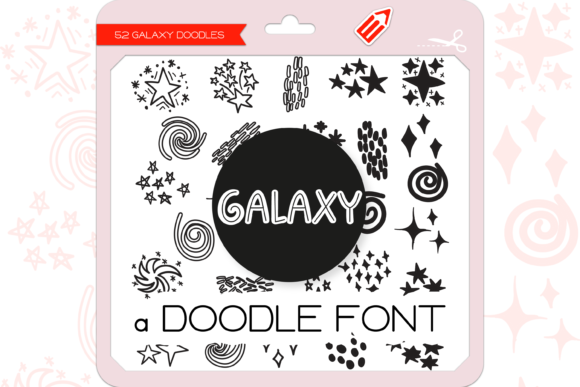
Spark Your Creativity with the Galaxy Dingbats Font
Have you ever stared up at a starry night sky, feeling the urge to create something as magical and whimsical as the stars themselves? As designers, we’re no strangers to the thrill of finding the perfect font to bring our ideas to life. That’s exactly what happened when we stumbled upon the Galaxy Dingbats Font – a charming collection of 52 hand-drawn doodles of stars and the milky way.
This delightful font is designed to add a touch of whimsy to your designs, whether you’re creating a border, divider, or frame. The Galaxy Dingbats Font is a treasure trove of creative possibilities, just waiting to be explored. For designers looking to add a unique twist to their work, this font is a valuable asset that’s sure to set your designs apart from the rest.
Galaxy Dingbats Font Key Features
- Font Style: Dingbats, a unique blend of symbols and graphics
- Unique Characteristics: Features a wide range of symbols, including celestial bodies, stars, and other astronomical elements
- Character Count: Includes over 1000 unique characters, including uppercase and lowercase letters, numbers, and symbols
Galaxy Dingbats Font Review
Overall, I think the Galaxy Dingbats Font is a visually appealing and unique choice for designers looking to add a touch of the cosmos to their projects. ✨ The font’s stylized, hand-drawn feel gives it a quirky and eye-catching quality that’s sure to grab attention.
- ✨ The font’s ability to evoke a sense of wonder and curiosity, perfect for projects that need to convey a sense of discovery or exploration.
- ✨ The wide range of weights and styles available, making it easy to customize the font to fit your specific design needs.
- ✨ The font’s versatility, working well in both digital and print projects.
- ⚠️ The font may not be suitable for projects that require a high level of professionalism or formality, as its stylized feel may come across as too playful or casual.
- ⚠️ The font’s lack of consistency in terms of letter spacing and kerning may make it difficult to read in certain contexts.
- ⚠️ The font’s limited character set may make it difficult to use in projects that require a wide range of special characters or symbols.
I would recommend the Galaxy Dingbats Font to designers looking for a unique and eye-catching choice for their projects. However, it’s essential to carefully consider the project’s tone and requirements before deciding whether this font is the right fit.
Tips for Getting the Most Out of Galaxy Dingbats Font
Experiment with different font sizes and colors to create visually appealing designs.
Combine Galaxy Dingbats Font with other fonts for a unique look.
Use it to create eye-catching titles, headings, and other text elements.
Galaxy Dingbats Font is perfect for:
Creating futuristic and sci-fi themed designs.
Adding a touch of whimsy and playfulness to your designs.
Designing for young adult or children’s products.